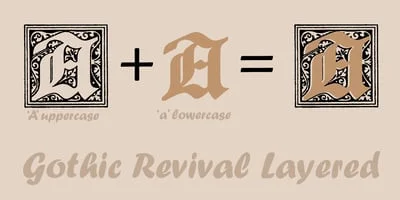
Gothic Revival Layered Font
Gothic Revival Layered Font is perfect for medieval-themed designs, gothic architecture presentations, historical museum displays, dark fantasy book covers, heavy metal band logos, vintage brewery labels, cathedral restoration projects, medieval festival posters, horror movie titles, and ecclesiastical branding materials. Its layered character makes it ideal for projects requiring dramatic depth and historical authenticity.
What makes Gothic Revival Layered Font exciting is its innovative multi-layered design system that recreates the dimensional beauty of carved stone lettering found in medieval cathedrals. The font features intricate layering capabilities that allow designers to create stunning depth effects, shadow variations, and dimensional typography that appears to emerge from ancient stonework. Its authentic Gothic letterforms transport viewers to medieval times while offering modern design flexibility.
The Gothic Revival Layered Font family includes Base, Shadow, Outline, Solid, Textured, Carved, and Ornamental variations. Each style works independently or combines with other layers to create complex dimensional effects and historical authenticity. The comprehensive character set includes medieval symbols, ecclesiastical ornaments, decorative flourishes, and period-appropriate glyphs for authentic Gothic typography projects.
Designers and creative agencies consistently choose Gothic Revival Layered Font for projects demanding historically accurate typography solutions. The font's layered system eliminates the need for complex 3D effects while providing instant medieval atmosphere and architectural authenticity. Its versatility spans from subtle historical touches to bold dramatic statements that command attention and respect.
Whether you're developing heritage brand identities, creating historical educational materials, or designing fantasy entertainment content, Gothic Revival Layered Font provides the perfect combination of historical accuracy and modern functionality. The font's carefully researched letterforms ensure authentic medieval character while maintaining excellent readability across contemporary applications.
The architectural heritage of Gothic Revival Layered Font makes it exceptional for creating immersive historical experiences through typography. Its stone-carved inspiration and dimensional capabilities work seamlessly across traditional print applications and modern digital environments. The font performs magnificently in both large display formats and detailed decorative applications.
Bring history to life with Gothic Revival Layered Font and discover how authentic medieval typography can transform ordinary projects into extraordinary journeys through time. This remarkable typeface combines historical research with innovative layering technology, making it indispensable for designers seeking genuine Gothic authenticity and dramatic visual impact.